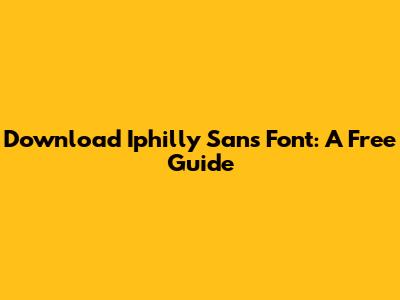
Download Iphilly Sans Font: A Free Guide
What is Iphilly Sans Font?
So, what exactly is the Iphilly Sans font? Well, it's a modern sans-serif font designed with simplicity and readability in mind. Think of it as that cool, approachable friend who's always got your back. It's got clean lines, a balanced weight, and a generally friendly vibe. This makes it incredibly versatile, working well in a variety of contexts. Whether you're a designer, a blogger, or just someone who loves to jazz up their documents, Iphilly Sans is a fantastic choice. The font family typically includes several weights, from light to bold, which gives you plenty of flexibility. You can use the lighter weights for body text, ensuring it’s easy on the eyes, and then punch up your headings with the bolder weights for maximum impact. This adaptability is one of the reasons why Iphilly Sans is such a popular choice. Iphilly Sans isn’t just about aesthetics; it's also about usability. Its clear letterforms ensure that your message is communicated effectively, without any fuss. The design focuses on legibility, meaning your audience can easily read and understand your text, even at smaller sizes. This is crucial whether you're designing a website, creating marketing materials, or simply writing a document. It's all about making sure your words look good and get read!
Iphilly Sans is a great example of a well-designed, functional font, and it's free, which is always a bonus. It’s perfect for both digital and print projects, which adds to its versatility. If you're looking for a font that's both stylish and easy to use, Iphilly Sans could be your new best friend. Understanding what a font is and why it's suitable will give you a better appreciation for its value. The choice of the right font is important to make your projects appealing, ensuring they will make a lasting impression!